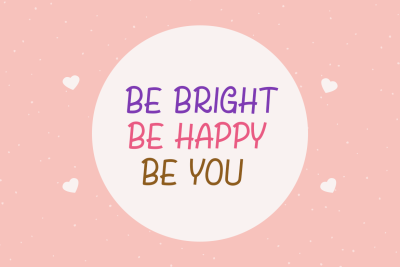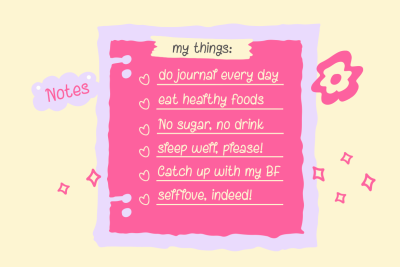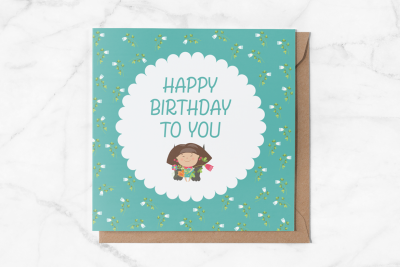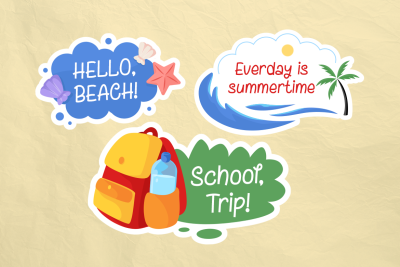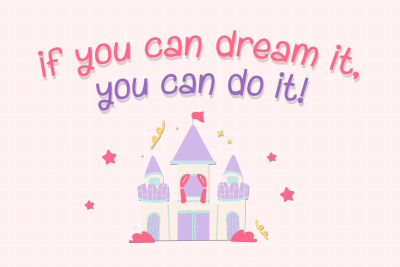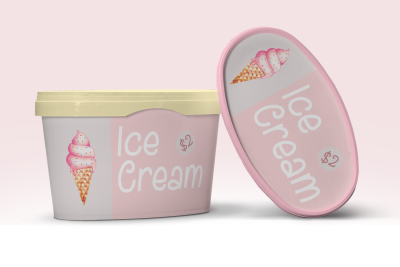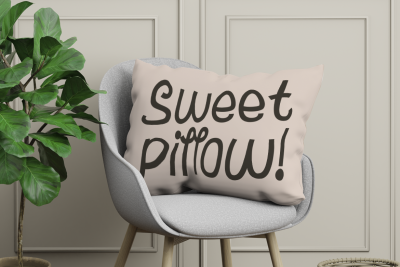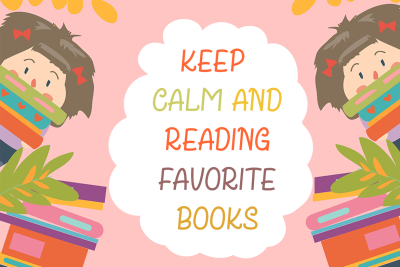
Cute Font Salman
SALMAN
Cute Font Salman is a delightful and lively typeface designed to bring charm and vibrancy to your creative projects. With its rounded and playful letterforms, this font exudes a cheerful and approachable vibe that instantly catches attention. The font’s whimsical curves and soft edges create a sense of joy and friendliness, making it ideal for designs that need a warm and inviting touch.
Salman is perfect for crafting projects that demand a personal, heartfelt connection. Whether you’re working on a kids’ party invitation or creating colorful posters, this font enhances the fun and playful tone. Its pastel-inspired aesthetics and casual style make it suitable for projects that emphasize creativity and lightheartedness. Despite its playful nature, Salman ensures legibility, allowing it to be used for both titles and short blocks of text.
This font stands out due to its balance of uniqueness and versatility. It is both engaging and practical, making it a fantastic choice for modern, family-friendly designs. Paired with soft colors, doodles, or heart-shaped graphics, it transforms any design into something truly delightful. Cute Font Salman offers an easy way to add a touch of joy and creativity to your work.
Cute Font Salman Suitable For
This font is perfect for a wide audience, ranging from educators to creative entrepreneurs. Teachers and parents can use it for designing classroom decorations, printable activity sheets, or chore charts. The font’s playful nature appeals to young learners and ensures that educational materials look inviting and engaging. For parents, Salman is also ideal for DIY projects like birthday invitations, family photo albums, and personalized greeting cards.
Graphic designers and small business owners will also find Salman incredibly useful. It’s perfect for branding products or services aimed at families or children. Businesses like daycare centers, toy manufacturers, or kids’ clothing stores can use this font to create a friendly and relatable brand identity. For stationery designers, Salman is an excellent choice for notebooks, journals, and other products that demand a cheerful and approachable look.
Content creators who focus on lighthearted or family-oriented themes can use Cute Font Salman to add a whimsical and fun tone to their visuals. It’s especially effective for Instagram posts, YouTube thumbnails, and blog headers, giving digital designs a unique and personalized feel. Creators of children’s e-books, apps, or games will also appreciate how this font complements colorful and interactive designs.
Craft businesses will benefit from using Salman to enhance handmade items like greeting cards, custom artwork, and holiday decorations. Its friendly and warm appearance makes it a great choice for creating memorable and heartfelt products. Overall, Cute Font Salman is a must-have typeface for anyone looking to bring joy, creativity, and a touch of cuteness to their projects. Whether you’re an educator, a parent, or a designer, Salman is a versatile tool that will elevate your designs effortlessly.